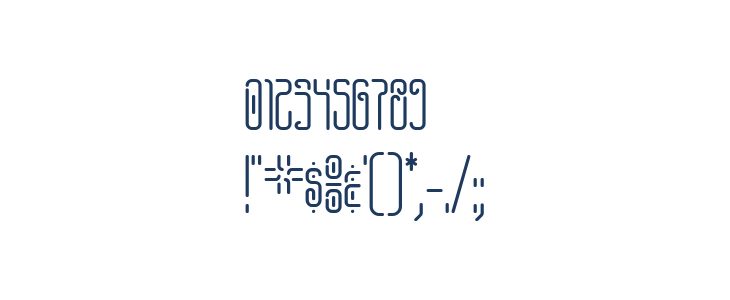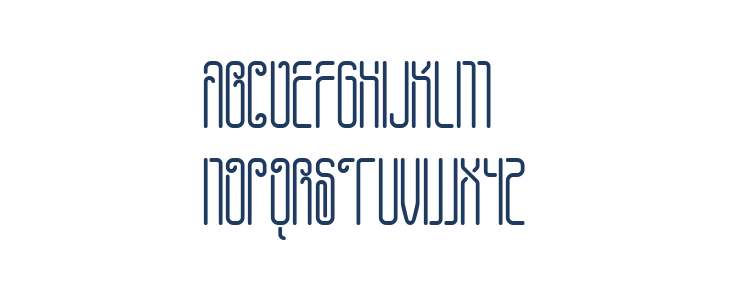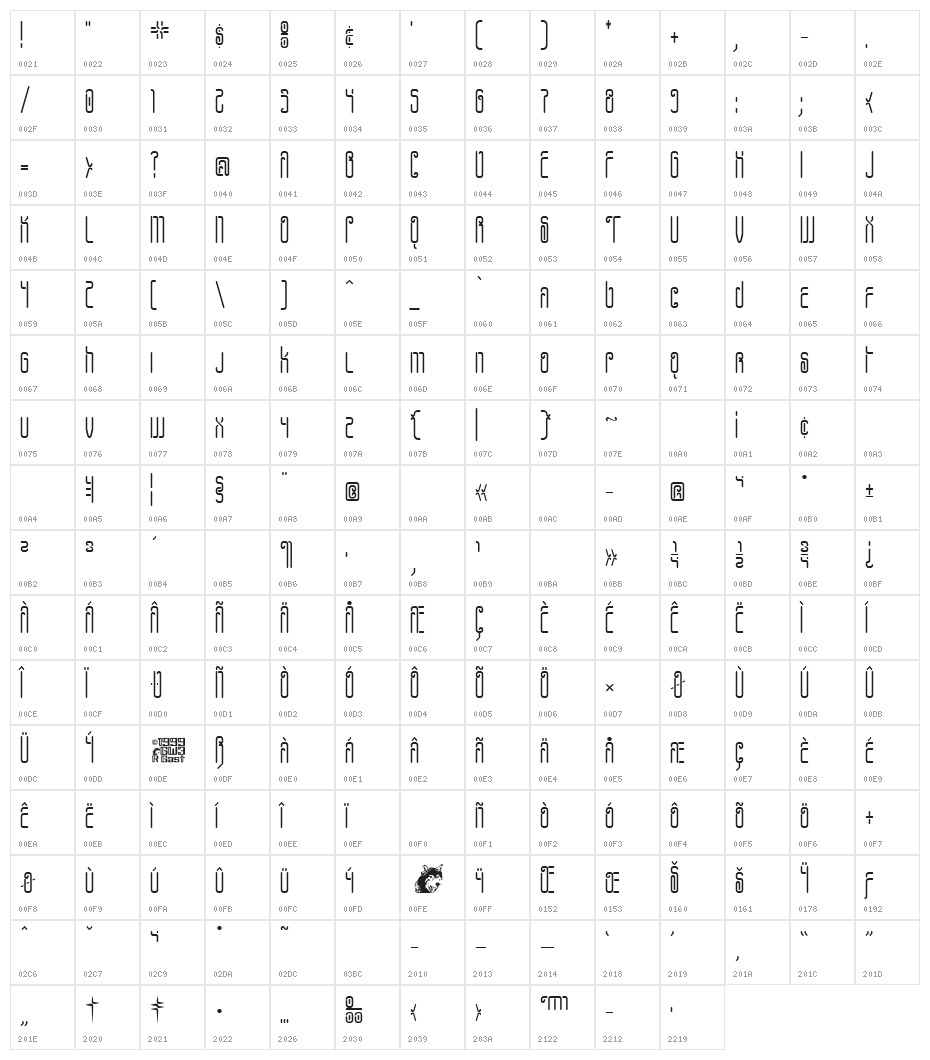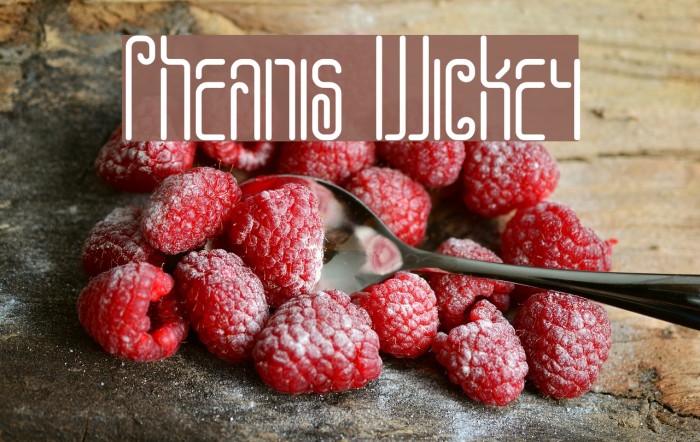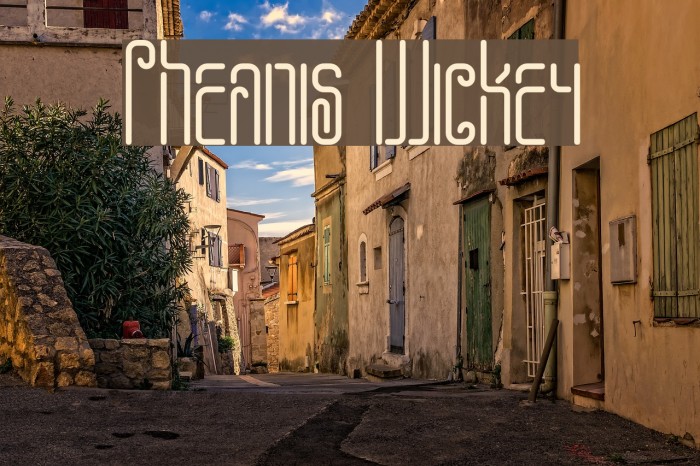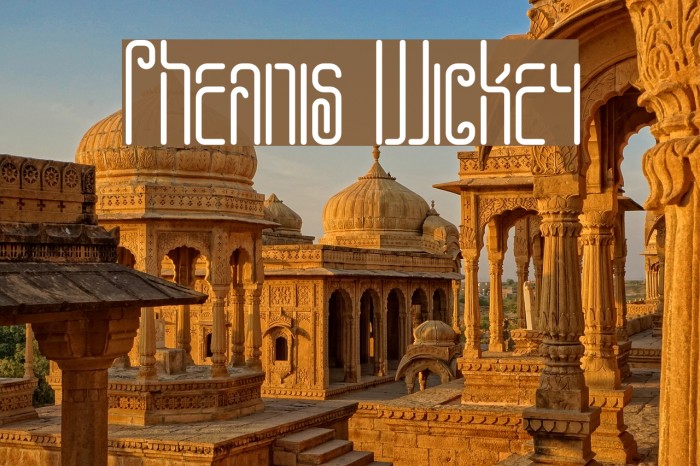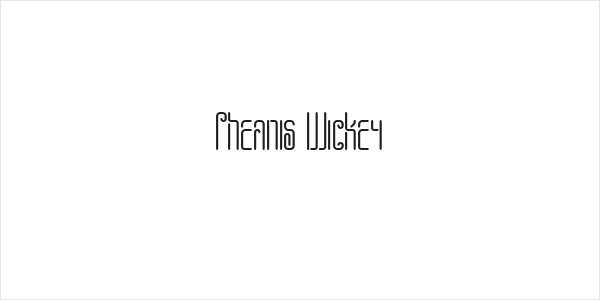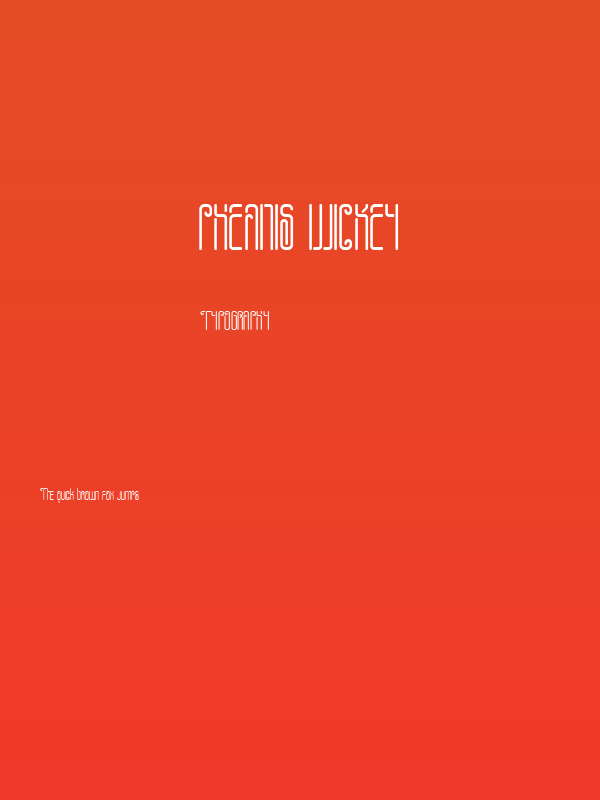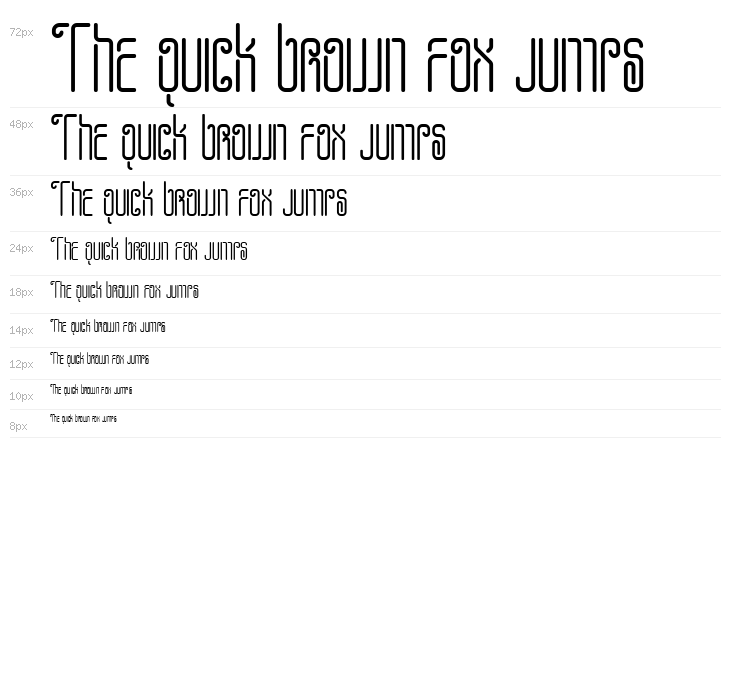
Pheanis Wickey Font
Pheanis Wickey Description
This font features a unique, futuristic design with elongated and rounded letterforms. The characters are composed of continuous lines that create a sense of fluidity and movement. The uppercase and lowercase letters maintain a consistent height, contributing to a uniform appearance. The numerals and special characters are designed with the same continuous line style, ensuring cohesiveness across all elements. This font's distinct style makes it stand out, offering a modern and innovative look that is both eye-catching and functional.
| Proposed Projects | Ideal for sci-fi themed projects, modern branding, innovative product packaging, and digital media. |